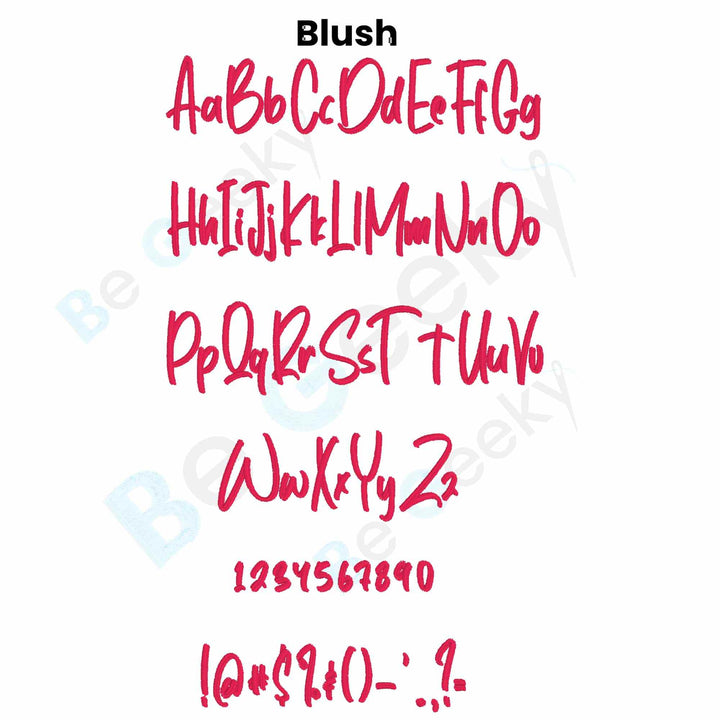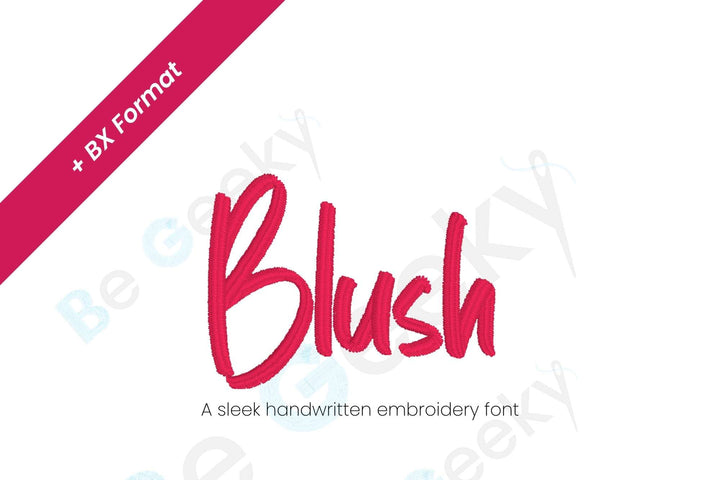
Photograph of Blush embroidery font
Photograph of Blush embroidery font alphabet
Blush Digital Font
IIntroducing Blush - the enchanting digital handwritten embroidery font that will bring a touch of elegance and warmth to your next creative project. Blush is meticulously crafted to exude grace and nostalgia, evoking the intimate charm of handwritten notes passed down through generations.
Infuse your projects with an irresistible blend of timeless beauty and modern versatility. Whether you're a passionate hobbyist, a professional designer, or simply looking to add a dash of character to your work, Blush will be your go-to font for that extra special touch.
Experience the allure of the past with the ease of the digital world. Fall in love with Blush today and elevate your designs to new heights of elegance and charm.